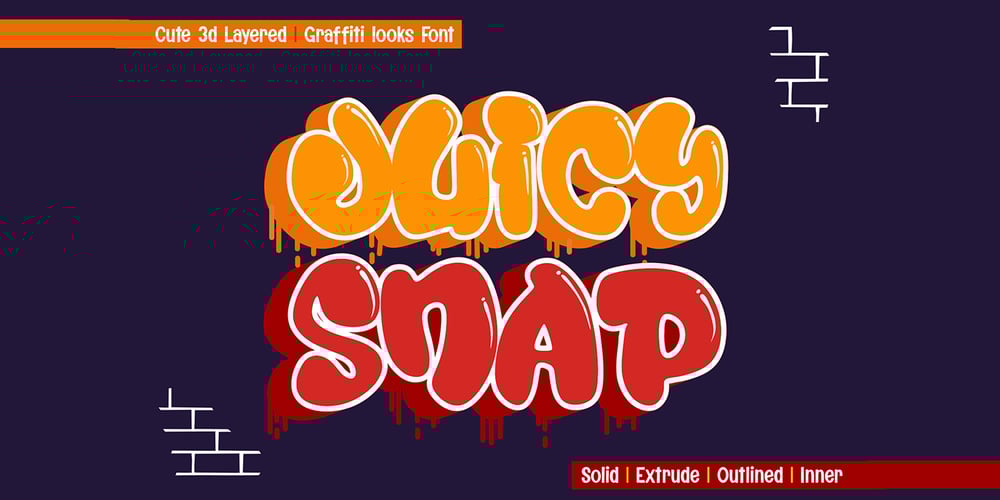
Juicy Snap Outline Font Family was designed by Sipanji and published by Sipanji21. Juicy Snap Outline contains 4 styles and family package options. Juicy Snap is a lively and bold 3D display font that brings a playful, graffiti-inspired vibe to your designs. With its chubby and cute characters, this font captures attention with its thick, bubbly letters that are full of personality. Juicy Snap offers versatility with four layered typefaces—extrude, outlined, solid, and inner shadow—allowing you to experiment with depth, dimension, and various effects. Whether you’re designing for children’s products, playful branding, social media graphics, or any project that needs a touch of fun and creativity, Juicy Snap is the perfect choice to add a vibrant, street-style flair. This font’s expressive nature makes it ideal for creating standout visuals that are both memorable and visually engaging.